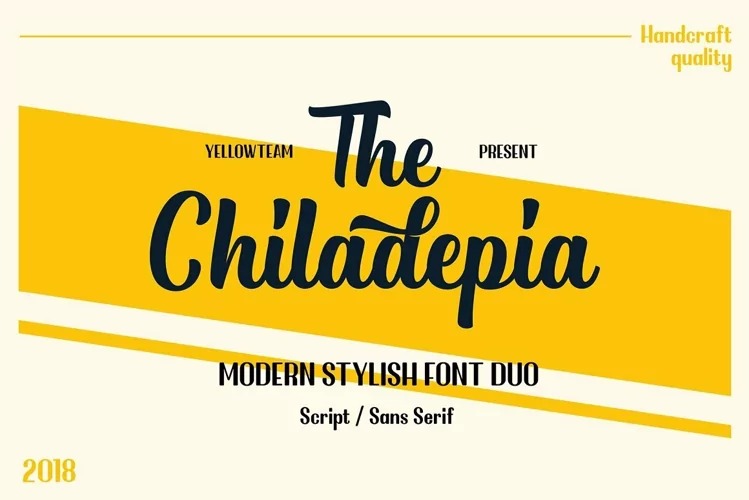
Chiladepia Font
Chiladepia Sans Serif Font
This is elegant and wide sans serif font created by Colative with multilingual support. It’s designed and shared by sartstudio. This font is best used for your design project that has the concept of fun, girly, romantic and elegant. Can also be applied to the design of a logotype, header website, wedding logo, romantic design, makes some lettering a quote, T-shirt design etc.